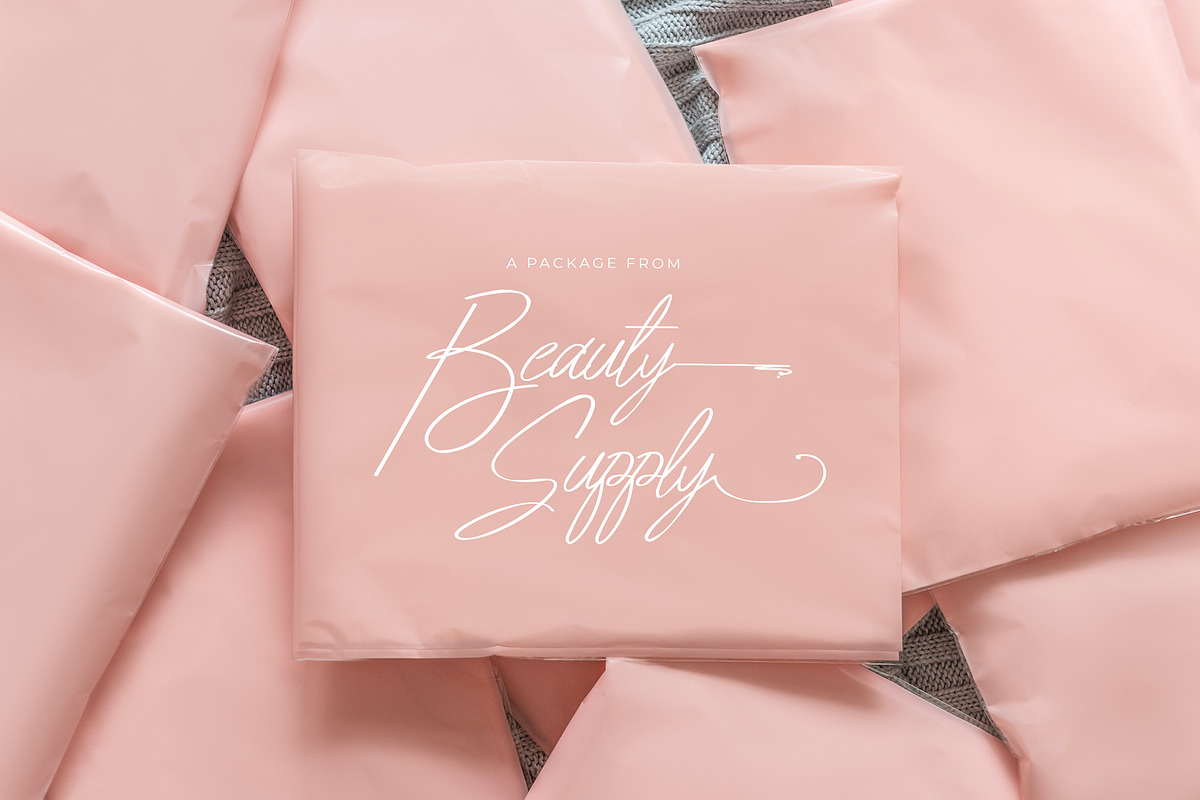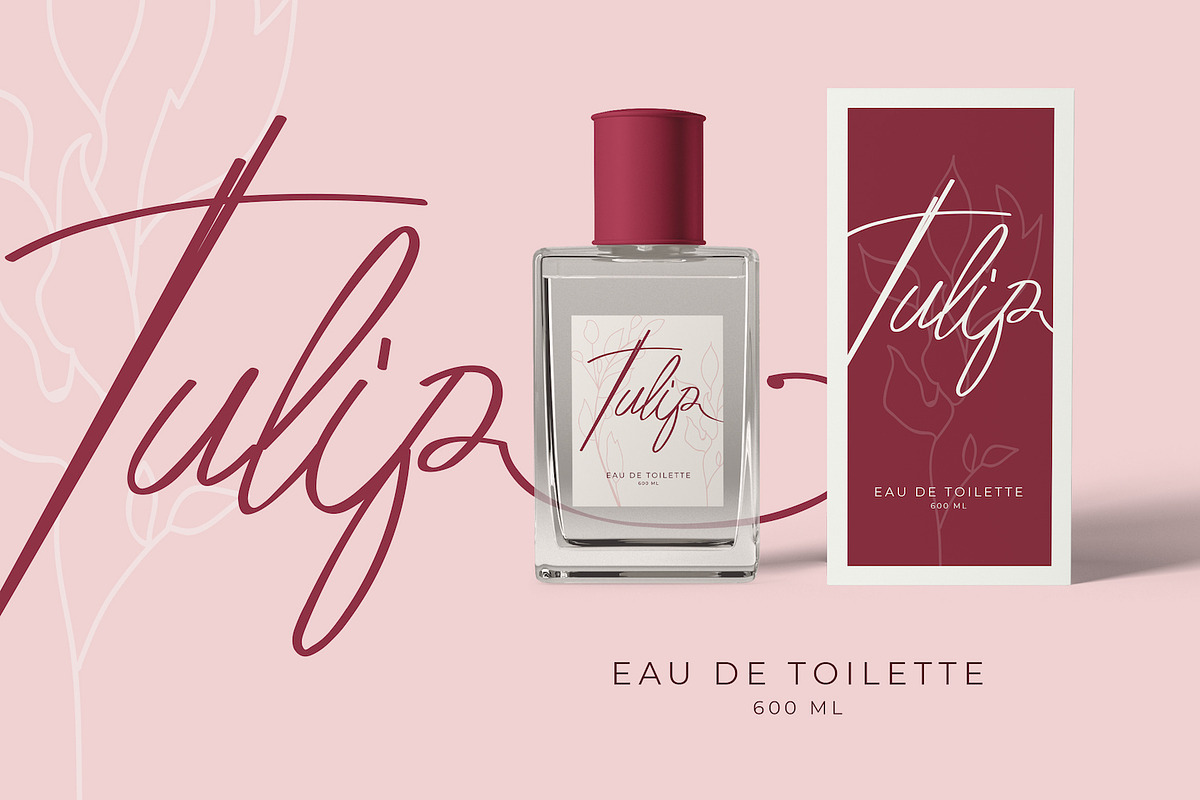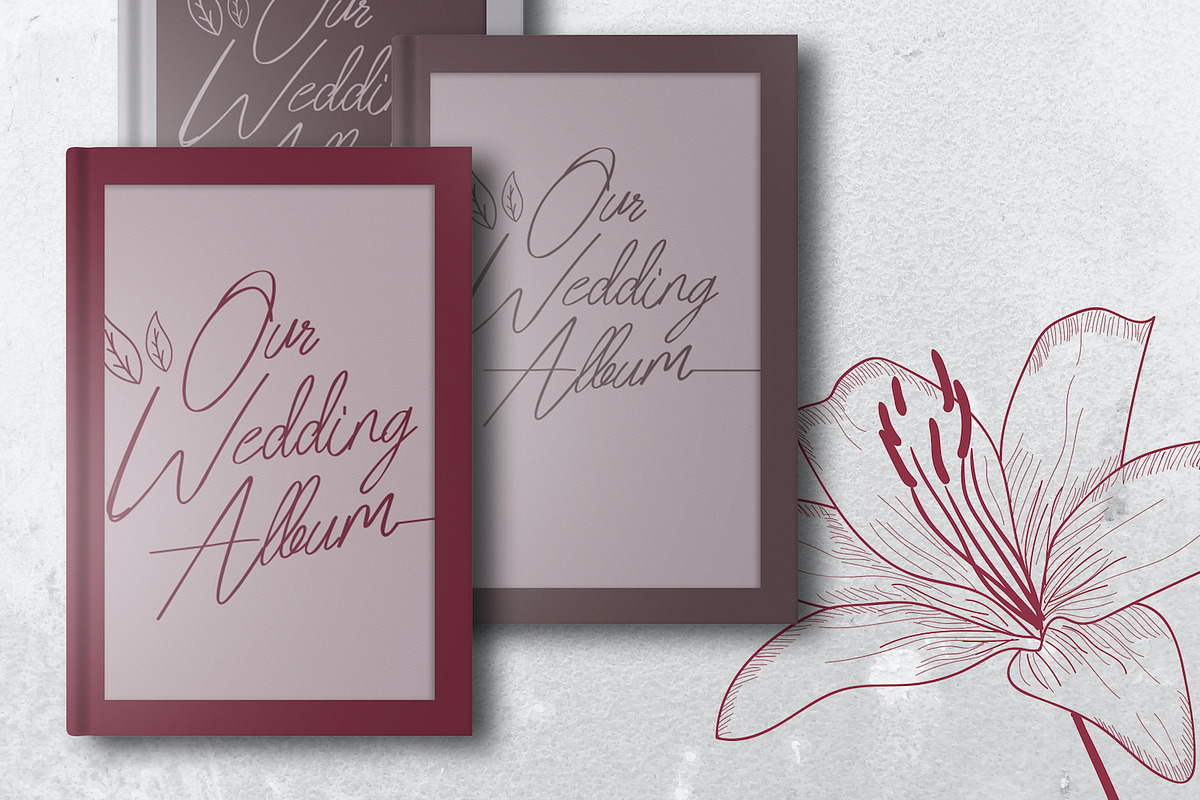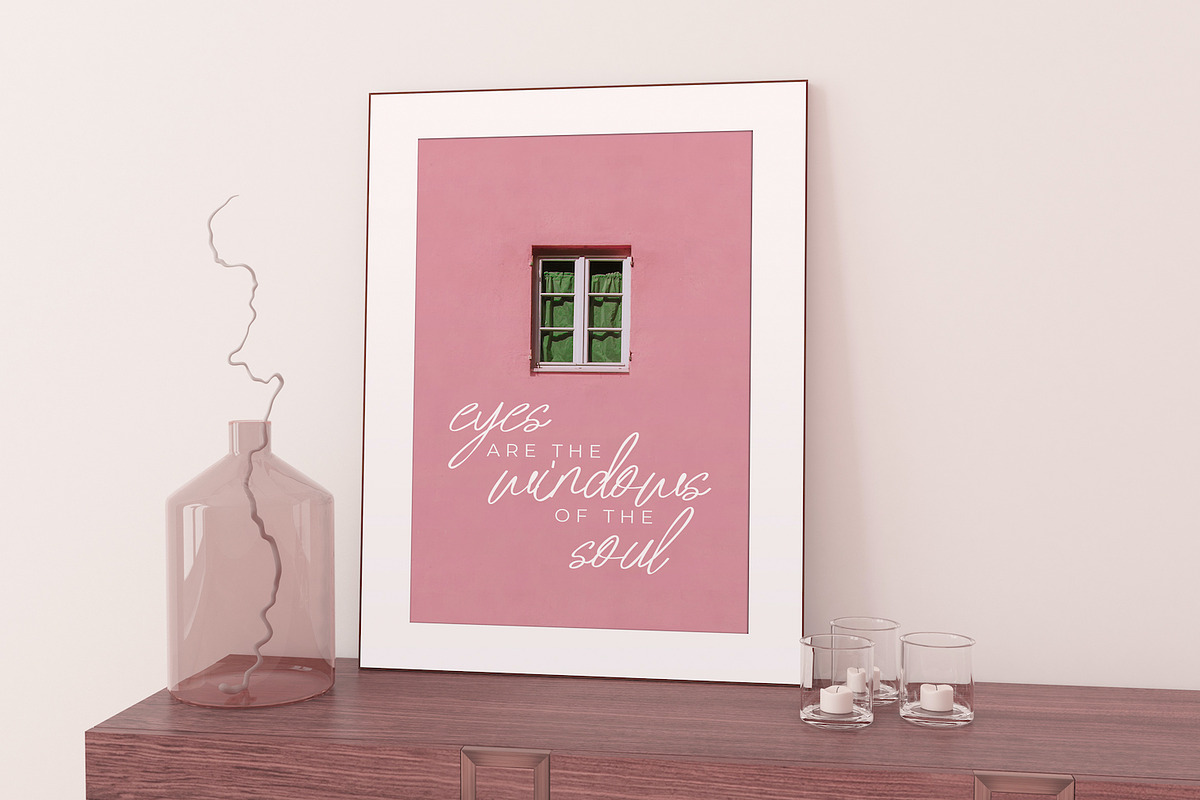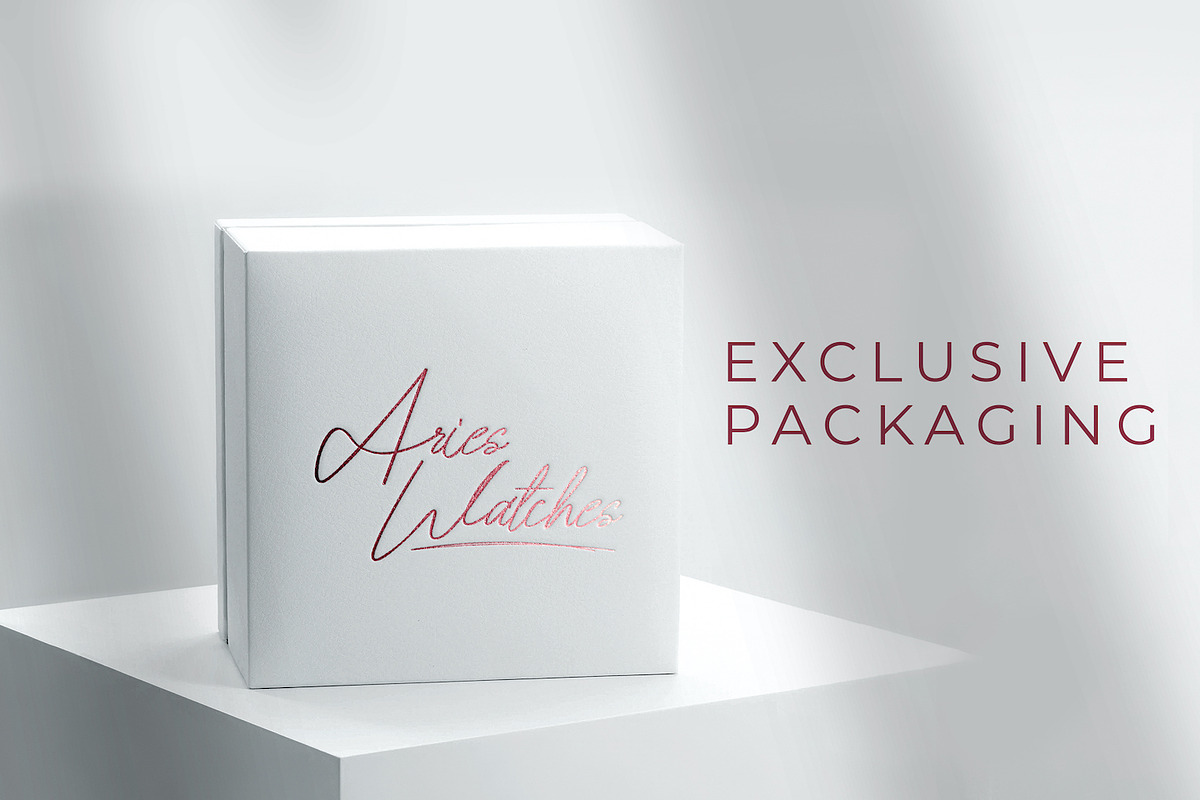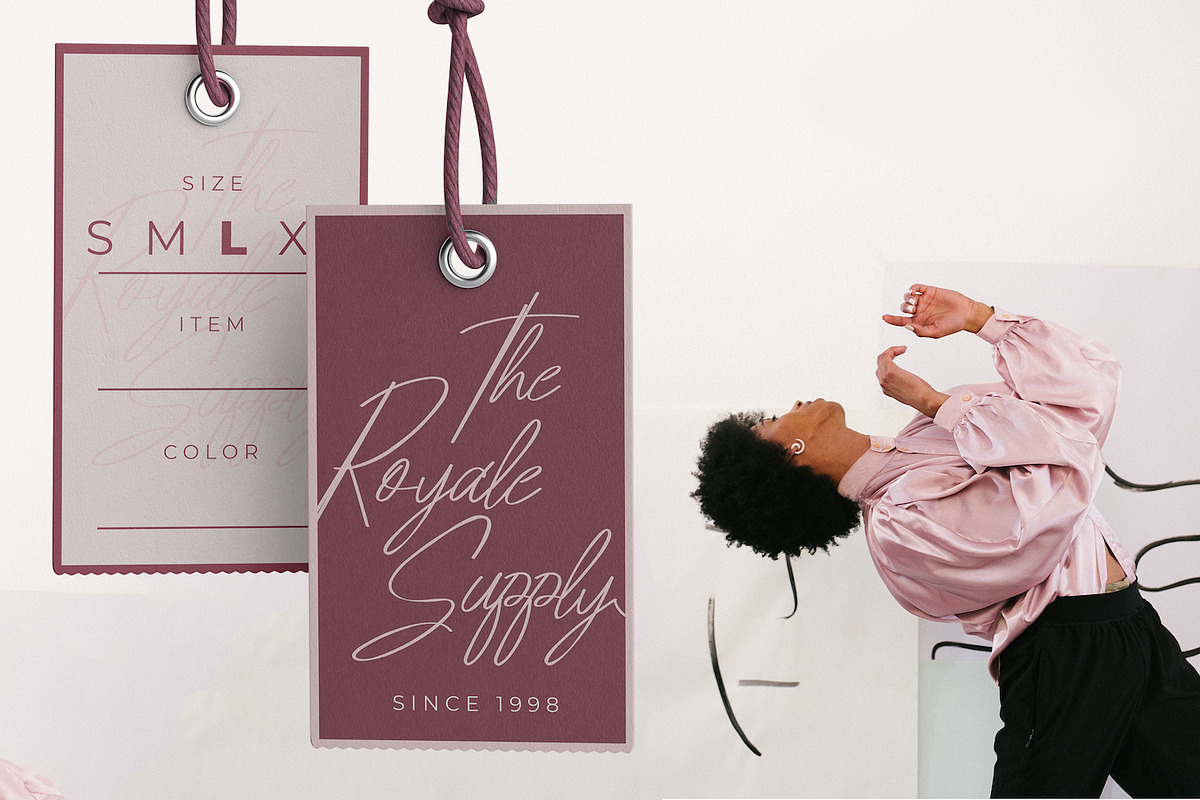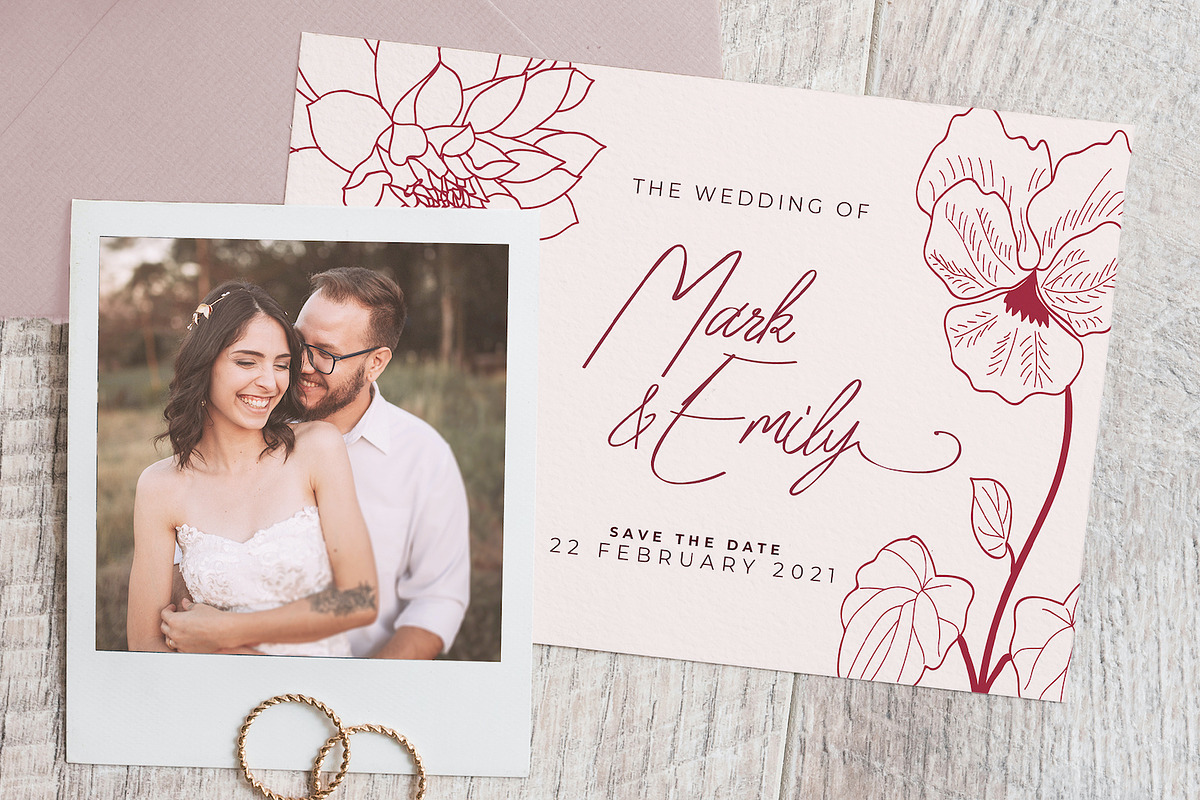
Awely Shiny - Handwritten Font
Introducing Awely Shiny - Handwritten Font
Awely Shiny is a magical handwritten font carefully created with a touch of elegance. This is a beautiful combination of timeless elegance and authentic calligraphy. It features an incredibly classic style, while still keeping a friendly feel. This font is the perfect font for making original and outstanding designs.
Why Awely Shiny - Handwritten Font is worth a look
Awely Shiny - Handwritten Font by StringLabs fits naturally into Branding, posters, packaging, typography.